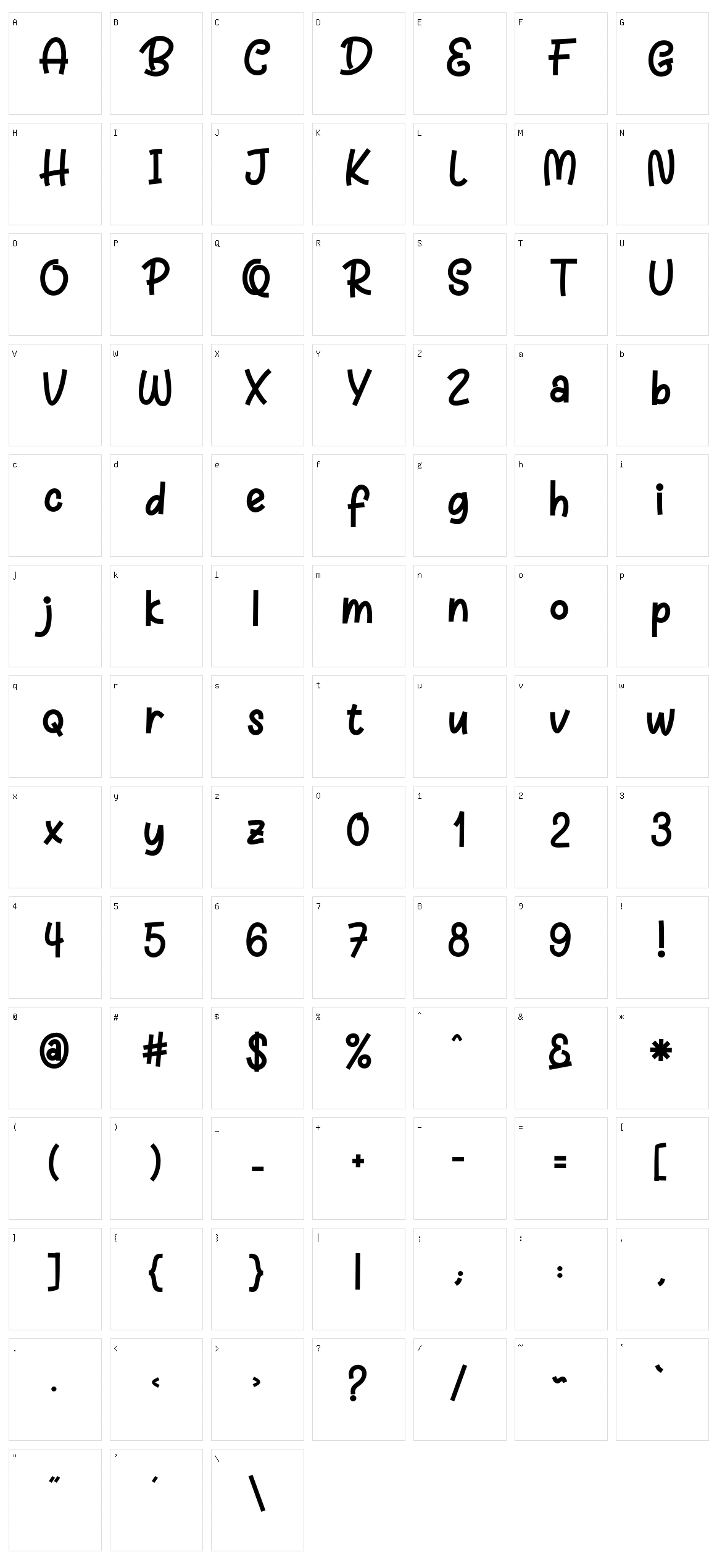
The free font Charly Dreams is carefully designed by Awansenja Type, showcasing a thoughtful balance of creativity and usability and falls under the Cartoon font style. When you download the ZIP file, it contains only 40.18 KB of font files, making it lightweight and quick to download. Please review the license details below to understand permitted usage and distribution rights. If license information is not available, we recommend using this font for personal projects only or contacting the author directly for commercial usage permissions.